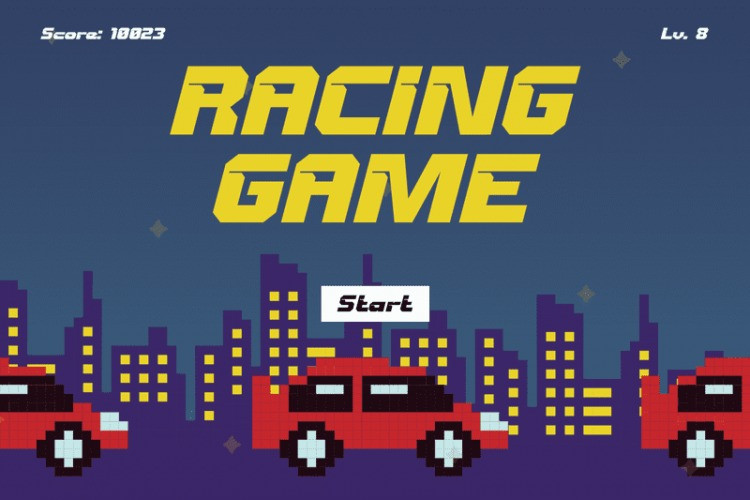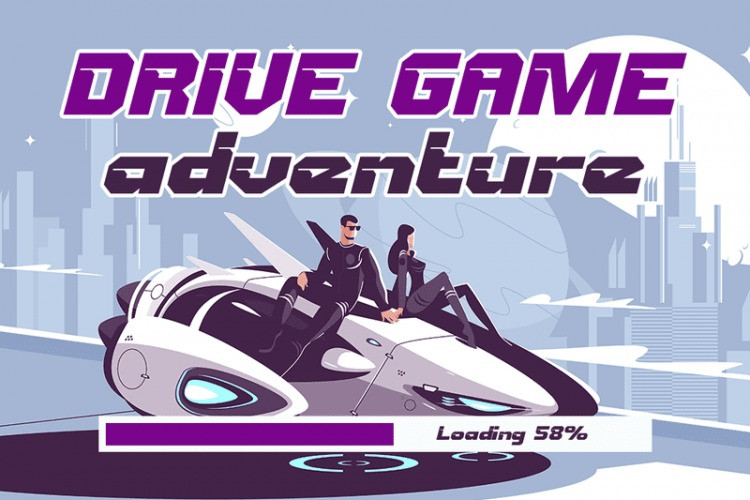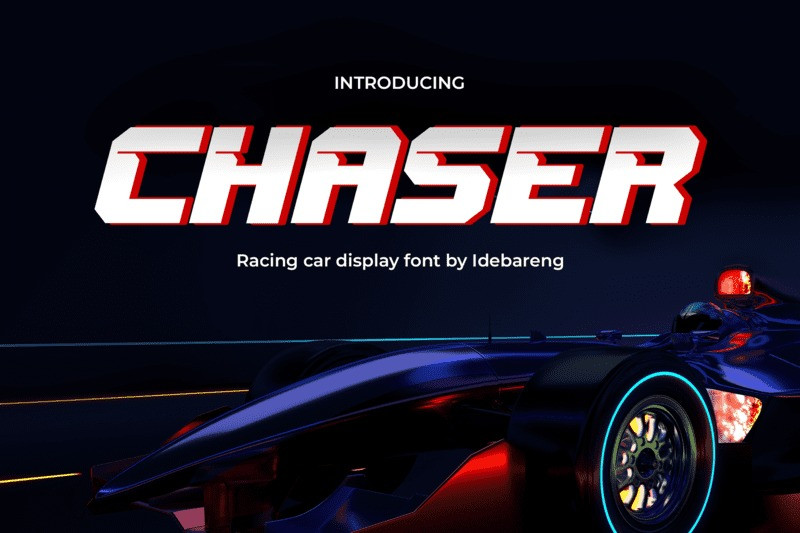
Chaser Font
Chaser Font, the racing car display font that brings the speed and energy of the racetrack to your design projects. This modern and dynamic font is perfect for any racing or automotive-themed project, from YouTube channel art and movie posters to website headers and digital ads.
Chaser’s sleek and aerodynamic design captures the thrill of high-speed racing, with bold lines and sharp angles that convey power and precision. Its versatile style makes it perfect for a range of applications, from modern and edgy designs to more classic and refined styles.
Whether you’re a racing enthusiast or simply looking for a high-impact display font to add some excitement to your designs, Chaser is the perfect choice. So rev up your creativity and let Chaser take you on a high-speed ride to the finish line.
Chaser is the ideal choice for any project that needs to capture the energy and excitement of the racing world. With its eye-catching design and versatile style, Chaser is sure to make an impact in any context.